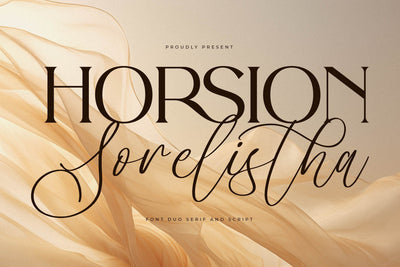
Horsion Sorelistha Font Duo
Proudly present Horsion Sorelistha Font Duo , created by Storytype,
A serif and script typeface that has own unique style & modern look.